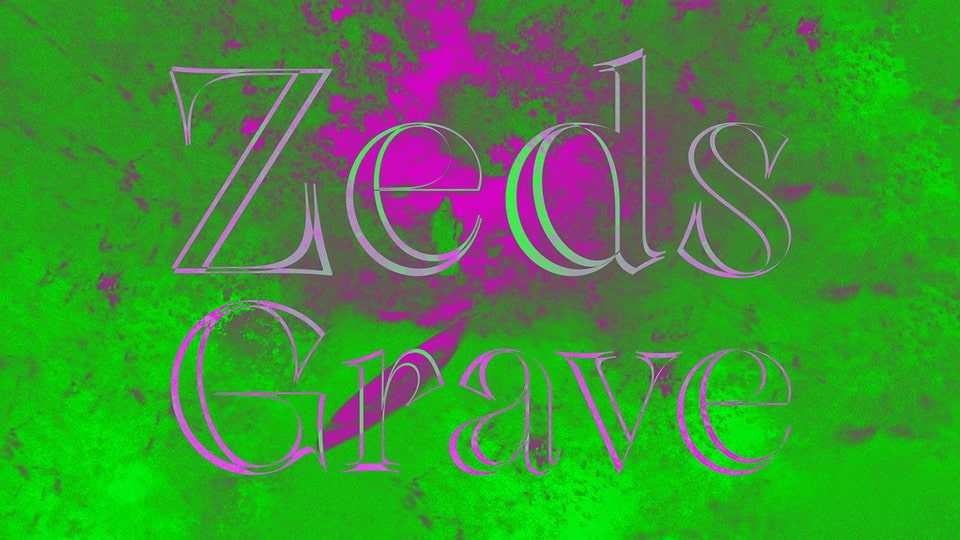
Download Jess’s Dead font, a modern and sophisticated serif typeface inspired by by Zeds Dead’s music. It’s a captivating serif font that weaves a tapestry of beauty, emotion, and nostalgia.